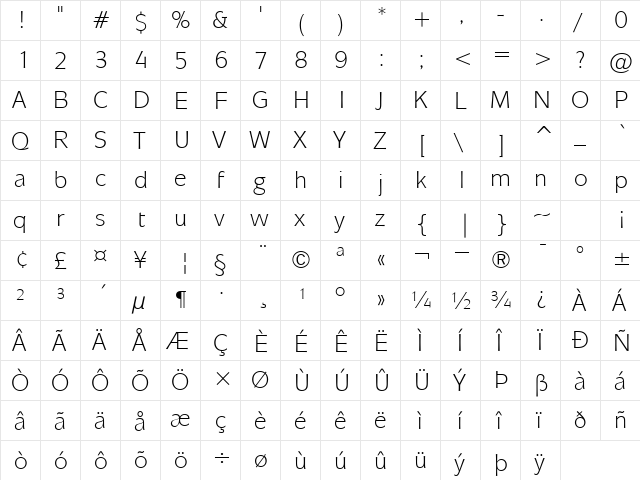
ITCMixage-Book Book Font Preview
ITCMixage-Book Book
Design Context for ITCMixage-Book Typeface
ITCMixage-Book takes a measured approach to typography — its balanced proportions and neutral character make it a reliable workhorse for both digital and print work.